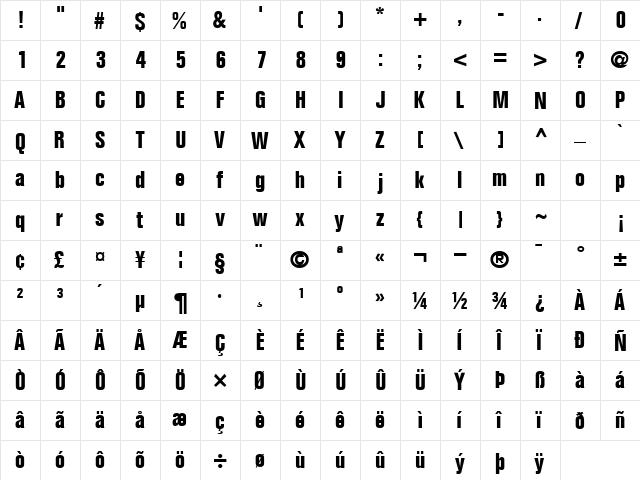
LayoutCondSSK Bold
Design Context for LayoutCondSSK Typeface
LayoutCondSSK offers clean, dependable letterforms without strong stylistic allegiance, making it a practical choice for designers who need flexibility. Its bold stroke weight gives it real presence on the page. Its narrow stance lets it pack a punch even in space-constrained designs.
Pro Tip: Use LayoutCondSSK in both headline and body roles to test its range before committing to a single application.